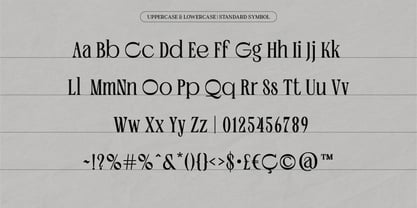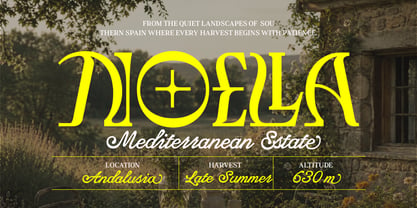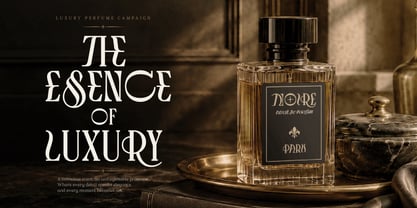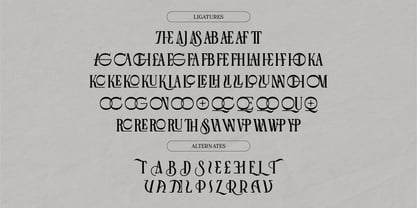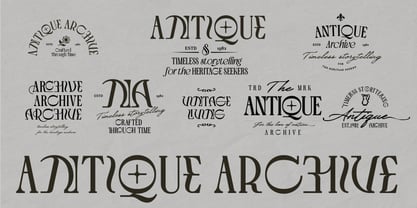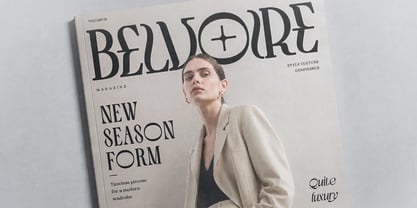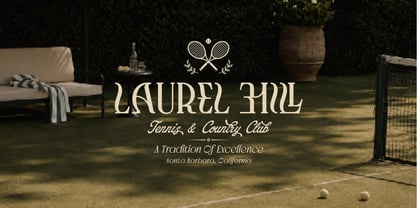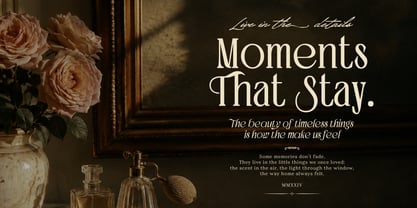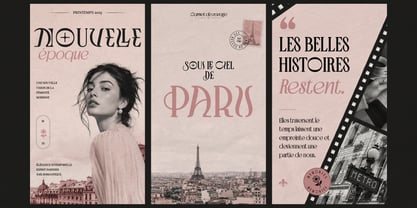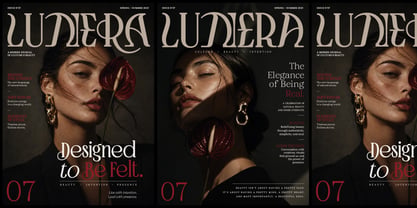
The Villas
La familia tipográfica The Villas fue diseñada por Akhmad Hidayat y publicada por Nollev. The Villas contiene 2 estilos y opciones de paquete familiar. Más información sobre esta familia
The Villas is a sophisticated high-contrast display serif that blends timeless elegance with a confident modern presence.
Inspired by classic fashion editorials, Art Deco refinement, and heritage craftsmanship, The Villas features dramatic contrast, graceful curves, and sculpted serif details that create a distinctive and luxurious typographic voice.
Designed for impactful headlines and refined visual identities, it is ideal for luxury branding, fashion, beauty and cosmetic packaging, jewelry, boutique hotels, magazines, premium logos, wedding stationery, book covers, and editorial design.
Features
• Regular & Italic
• Elegant Ligatures
• Stylistic Alternates
• High-Contrast Display Serif
• Multilingual Support
• Punctuation & Numerals
Elegant, expressive, and unmistakably refined, The Villas brings timeless character and premium presence to every project.